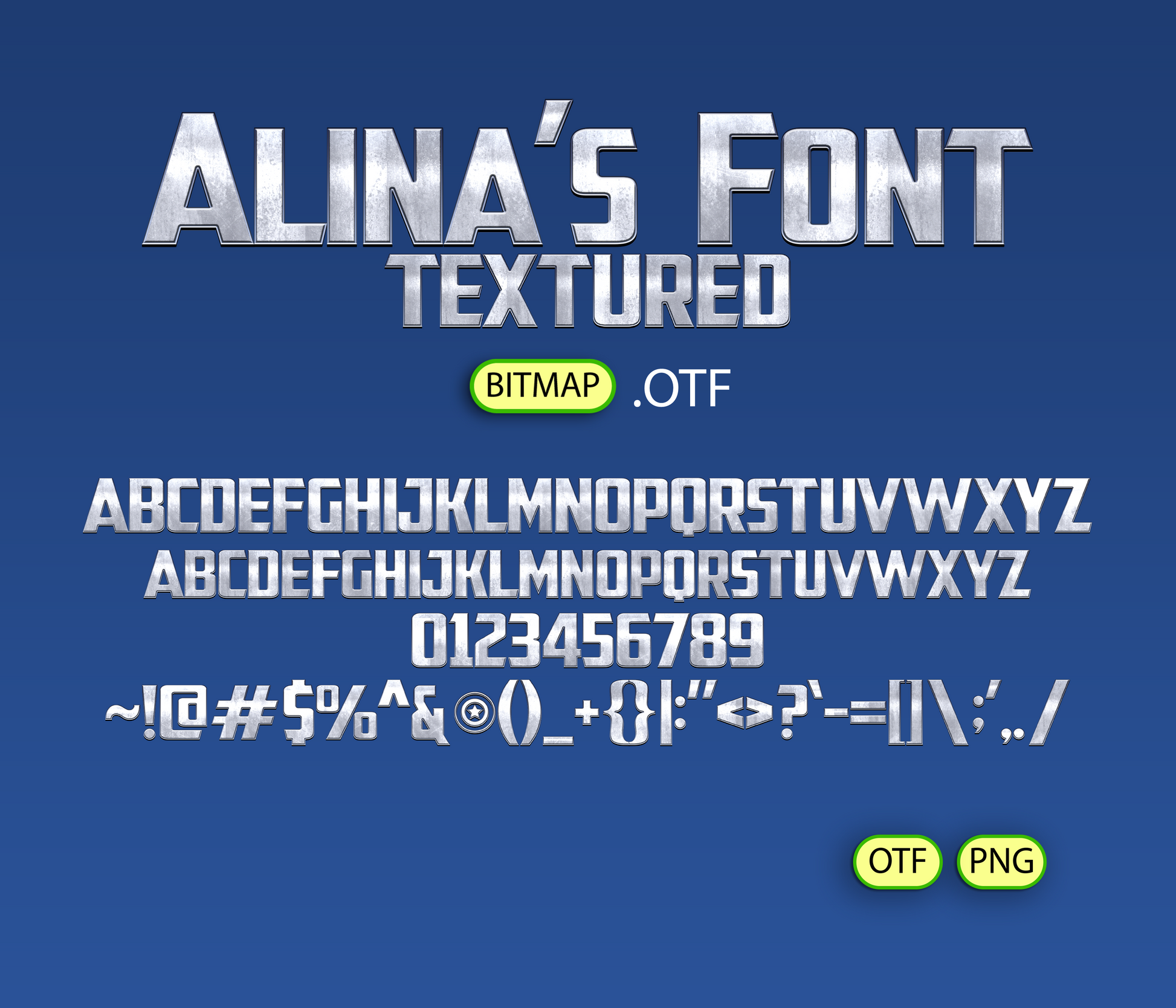
Star-Spangled Guardian Font Textured
Step into the patriotic world of heroism with our Star-Spangled Guardian font, capturing the essence of noble courage and legendary American spirit. Perfect for comic fans, party planners, event organizers, and designers, this font brings the bold, honorable character of a shield-wielding champion to your projects. Create inspiring materials, merchandise, or digital content with the heroic energy of justice and liberty.
Our Star-Spangled Guardian font features strong, valiant lines and determined characters reflecting the world of righteous heroes. Ideal for:
1. Event Promotions: Create inspiring invites, posters, and banners for patriotic celebrations, comic conventions, and themed parties that capture the spirit of heroic determination
2. Merchandise Design: Perfect for t-shirts, posters, and accessories that showcase the courageous side of American valor
3. Digital Media: Enhance websites, blogs, and social media with powerful headers and graphics that express the commitment to freedom and justice
4. Comic Content: Add authentic flair to fan art, superhero designs, and creative projects inspired by shield-bearing protectors
5. Personal Projects: Bring heroic charm to scrapbooking, DIY crafts, and home decor inspired by the world of star-spangled bravery
Our font pays tribute to the inspiring world of patriotic heroes, empowering your designs with its bold and honorable spirit. Whether crafting promotional materials, designing merchandise, or adding a valiant touch to personal projects, this font communicates the noble essence of American ideals. Ready to inject heroic courage into your creations? This font is your key to exciting, impactful design.